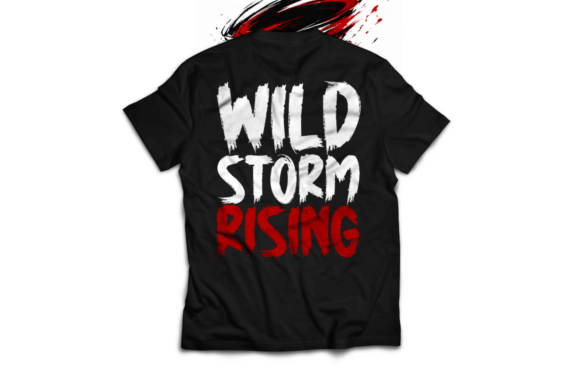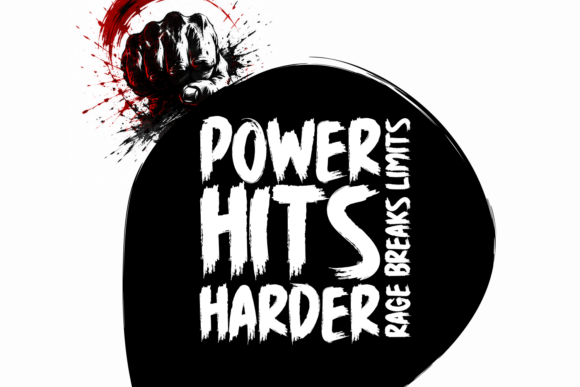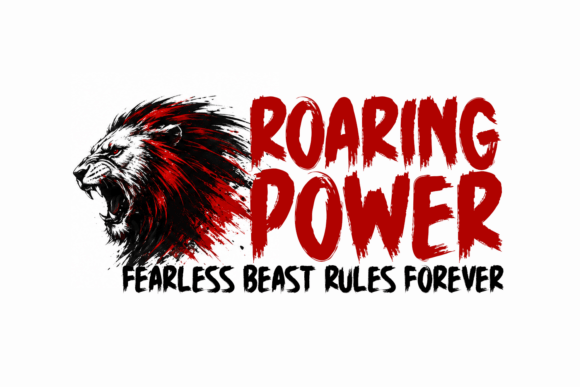
Introduction to Rapid Storm Font
Have you ever been working on a design project, pouring your heart and soul into it, and then, suddenly, you need that one final touch to make it truly pop? That’s when you remember the magic of the right font. For designers, finding the perfect font can be the difference between a good design and a great one. And, if you’re looking for a font that packs a punch, look no further than the Rapid Storm Font.
This intense brush font is designed to deliver a raw, hand-painted brush style with bold strokes and aggressive motion, making it perfect for eye-catching and high-impact designs. With its transparent background and high-quality design, the Rapid Storm Font is a valuable resource for any creative project.
Key Features of Rapid Storm Font
- Unique characteristics include a bold, dynamic feel and a wide range of customizable options.
Honest Review: Rapid Storm Font
I recently had the chance to work with the Rapid Storm Font, and I must say it’s been a game-changer for my creative projects. The font is a high-quality design resource that offers a unique and dynamic look that can elevate any design.
While the Rapid Storm Font is a great addition to any design arsenal, there are a few limitations to keep in mind:
- ⚠️ Limited font styles and weights available, which may not be ideal for complex designs.
- ⚠️ Some users may find the font too bold or overwhelming for certain projects.
Overall, I’m impressed with the Rapid Storm Font and would highly recommend it to designers looking for a unique and high-quality font to add to their design resource library.
The Rapid Storm Font is suitable for a wide range of creative projects, including brochures, business cards, social media graphics, and more. Its unique style and transparent background make it an excellent choice for designs that require a touch of sophistication and elegance.